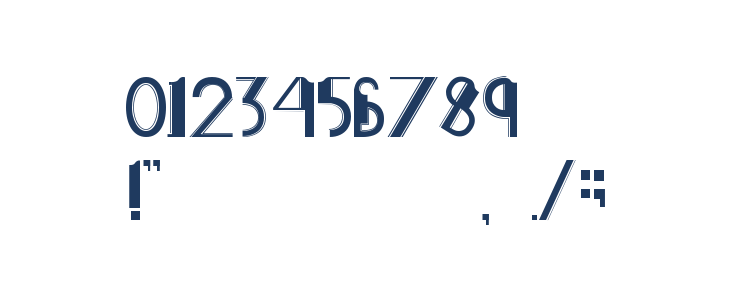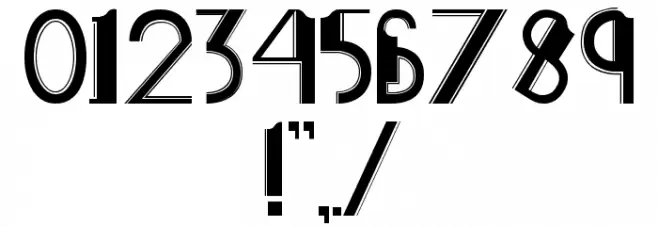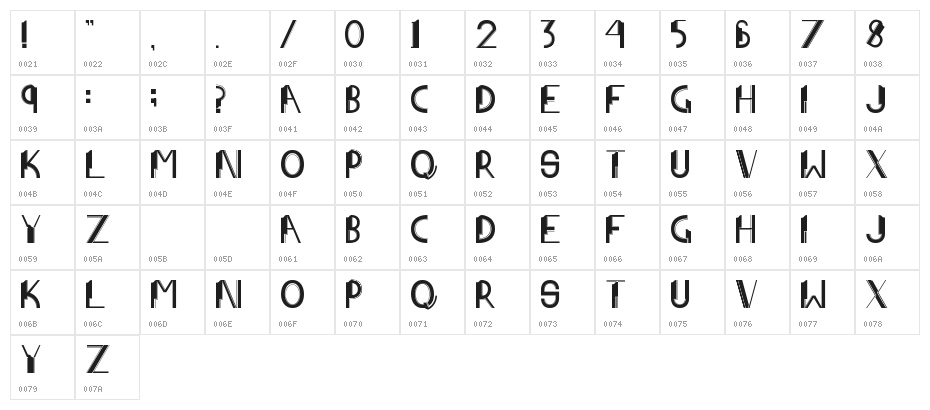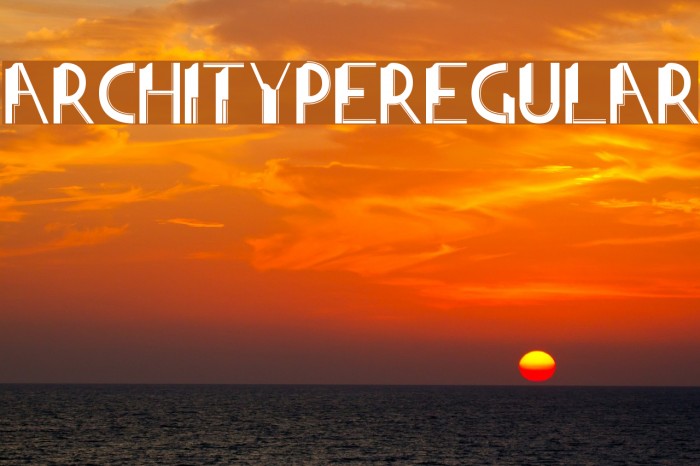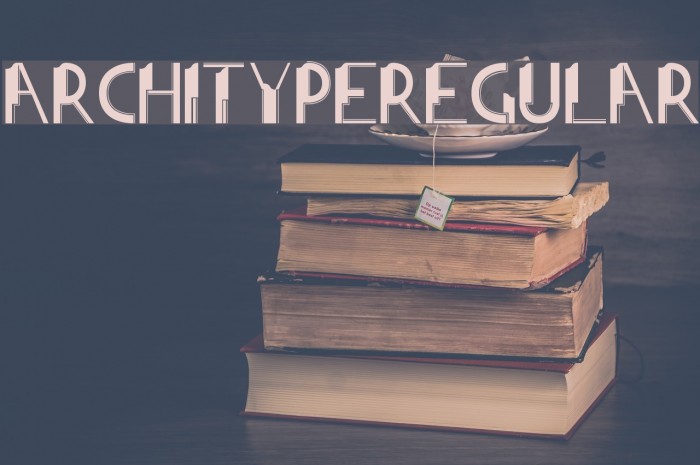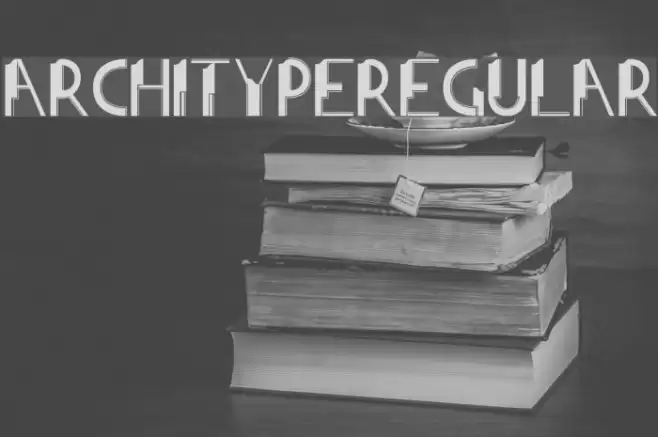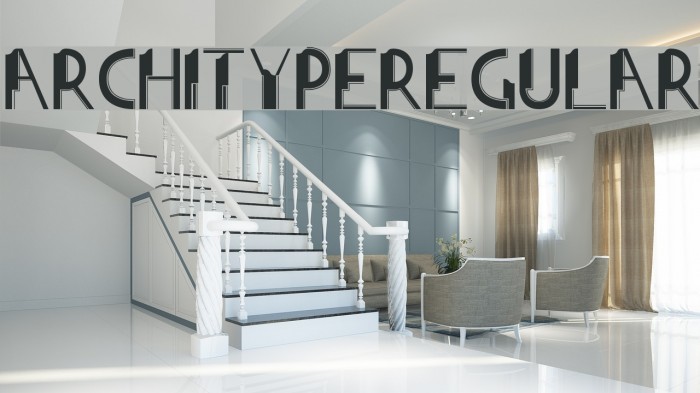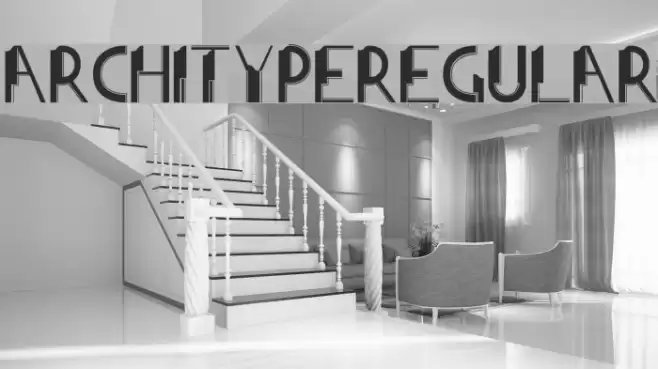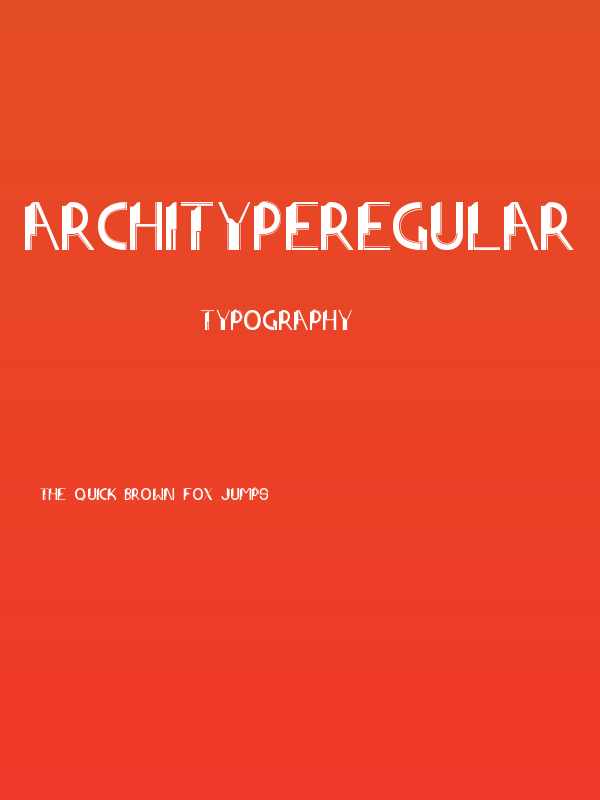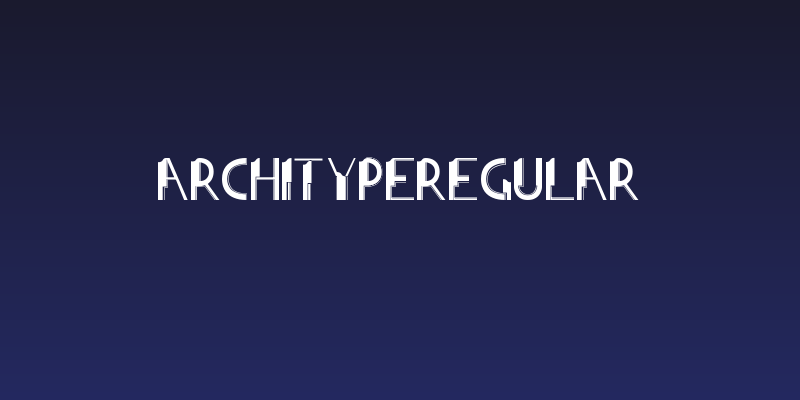
ArchitypeRegular Font
ArchitypeRegular Description
This font features a bold, geometric design with a distinct Art Deco influence. The characters are constructed with clean lines and sharp angles, creating a sense of modernity and sophistication. The uppercase letters are particularly striking, with unique cutouts and varying stroke widths that add visual interest. The numerals and special characters maintain this aesthetic, ensuring consistency across all elements. The font's style is both decorative and functional, making it suitable for a variety of design applications.
| Proposed Projects | Ideal for branding, poster design, and editorial layouts where a modern and sophisticated look is desired. |